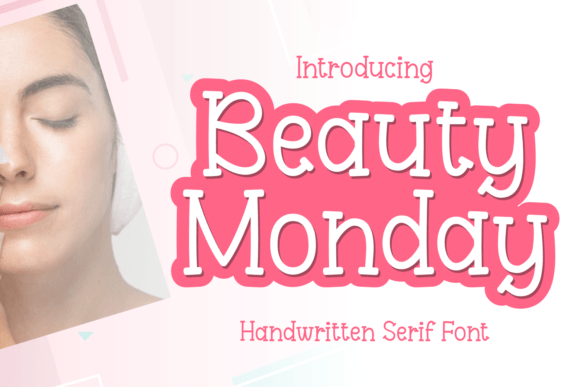
Introducing Beauty Monday Font: Elevate Your Designs with Elegance
Are you looking for a font that can add a touch of sophistication and elegance to your projects? Look no further than the Beauty Monday Font. This lovely handwritten serif font is designed to bring a sense of refinement and poise to your text, making it perfect for a wide range of applications.
The Charm of Beauty Monday Font
Beauty Monday Font is a unique blend of handwritten and serif typography. Its graceful strokes and classic charm make it an excellent choice for anyone looking to add a touch of elegance to their designs. The font’s subtle sophistication is perfect for creating beautiful and eye-catching text that will leave a lasting impression on your audience.
Key Features of Beauty Monday Font
- Handwritten feel: Beauty Monday Font has a warm and personal touch, making it perfect for creating invitations, social media posts, and other types of content that require a more human approach.
- Serif typography: The font’s serif details add a touch of classic elegance to your text, making it perfect for creating sophisticated and refined designs.
- Versatility: Beauty Monday Font is a versatile font that can be used for a wide range of applications, from print materials to digital content.
- Elegant strokes: The font’s graceful strokes add a touch of refinement and poise to your text, making it perfect for creating beautiful and eye-catching designs.
Perfect for a Variety of Applications
Beauty Monday Font is perfect for a wide range of applications, including:
- Invitations: Create beautiful and elegant invitations for weddings, parties, and other special events.
- Social media posts: Add a touch of sophistication to your social media posts and make them stand out from the crowd.
- Print materials: Use Beauty Monday Font to create beautiful and eye-catching print materials, such as brochures, flyers, and posters.
- Digital content: Use the font to create engaging and sophisticated digital content, such as blog posts, articles, and e-books.
Why Choose Beauty Monday Font?
There are many reasons why you should choose Beauty Monday Font for your next project. Here are a few:
- Unique and elegant: Beauty Monday Font is a unique and elegant font that will add a touch of sophistication to your designs.
- Versatile: The font is versatile and can be used for a wide range of applications.
- Easy to read: Beauty Monday Font is easy to read, making it perfect for creating content that needs to be read and understood.
- High-quality: The font is of high-quality, making it perfect for creating professional-looking designs.
Make Your Mondays Beautiful with Beauty Monday Font
Beauty Monday Font is the perfect way to make your Mondays beautiful. With its elegant strokes and classic charm, this font will add a touch of sophistication to your designs and make them stand out from the crowd. Whether you’re creating invitations, social media posts, or print materials, Beauty Monday Font is the perfect choice.
In conclusion, Beauty Monday Font is a lovely handwritten serif font that brings a touch of elegance to your projects. With its graceful strokes and classic charm, this font adds a subtle sophistication to your text. Perfect for a variety of applications, from invitations to social media posts, Beauty Monday effortlessly combines a handwritten feel with the timeless appeal of serif typography. Make your Mondays beautiful with this versatile and stylish font.
- What is Beauty Monday Font? Beauty Monday Font is a lovely handwritten serif font that brings a touch of elegance to your projects.
- What are the key features of Beauty Monday Font? The font has a handwritten feel, serif typography, versatility, and elegant strokes.
- What are the perfect applications for Beauty Monday Font? The font is perfect for invitations, social media posts, print materials, and digital content.
- Why should I choose Beauty Monday Font? You should choose Beauty Monday Font because it is unique and elegant, versatile, easy to read, and of high-quality.